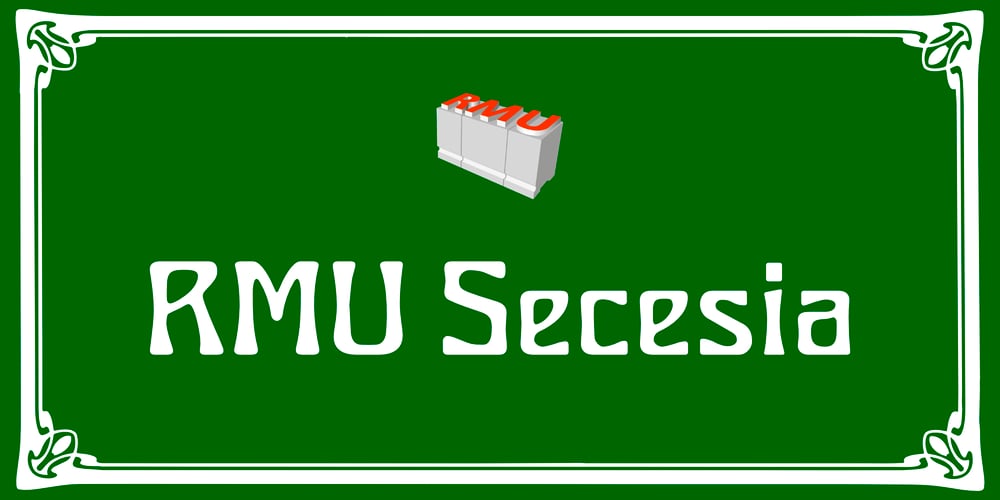
RMU Secesia
RMU Secesia font
RMU Secesia Font Family was designed by Ralph M. Unger and published by RMU. RMU Secesia contains 1 styles and family package options. RMU Secesia is a revival of an old turn-of-the-century font of an angular Art Nouveau design.Thanks to its good legibility, it can also be used for body texts.